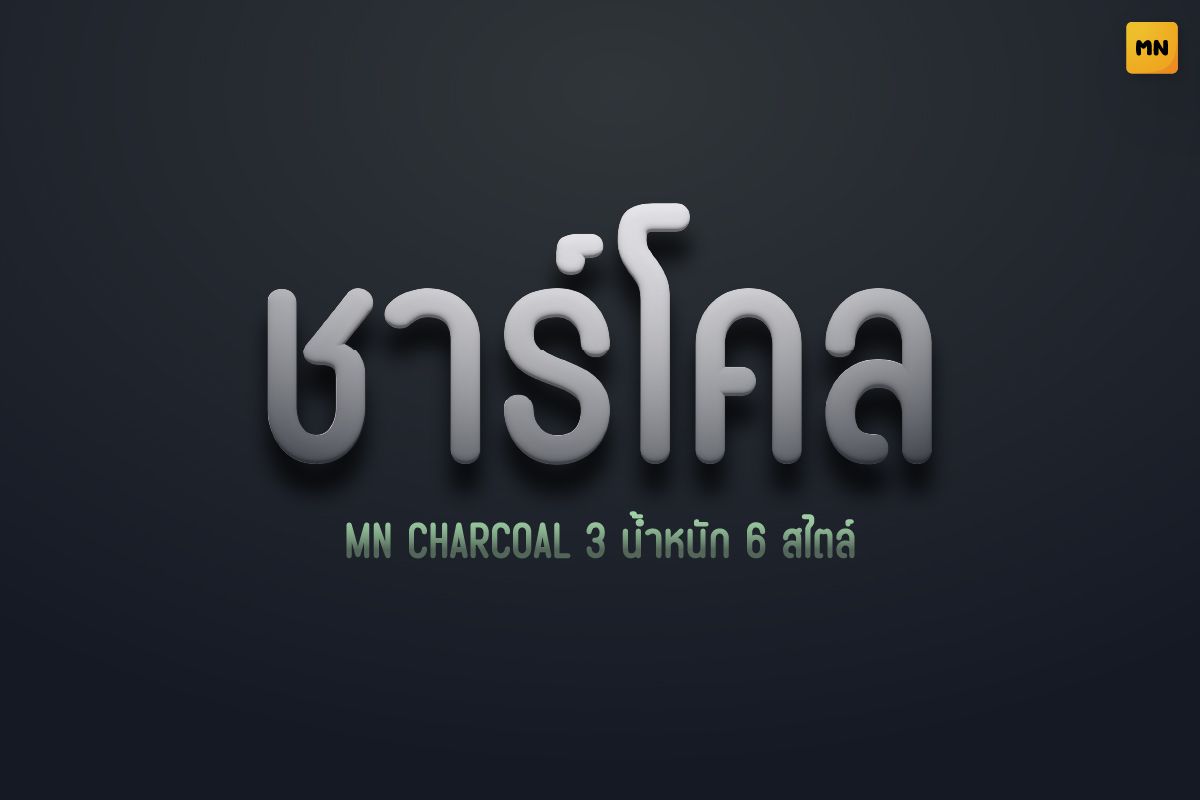
MN CHARCOAL Regular
A minimalist Thai sans-serif font with smooth rounded shapes and a modern aesthetic. Its clean geometry gives a sleek and futuristic look